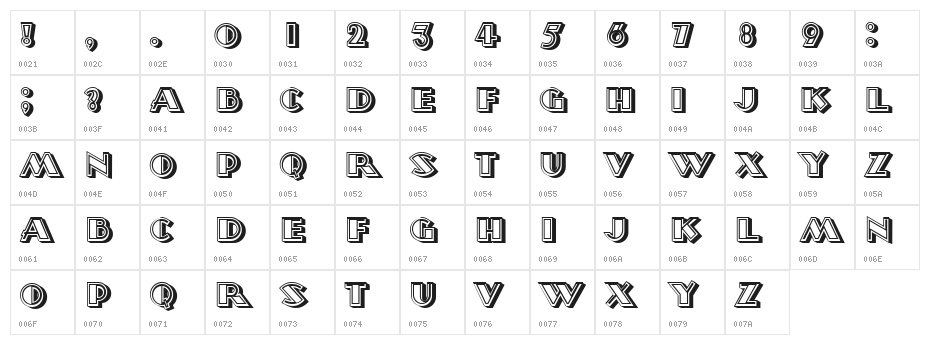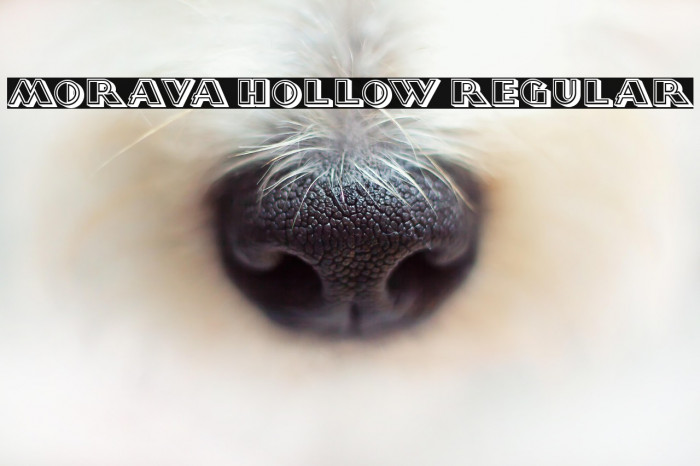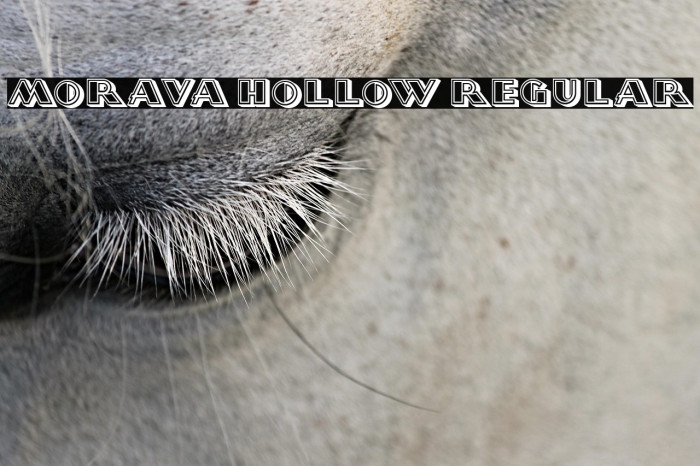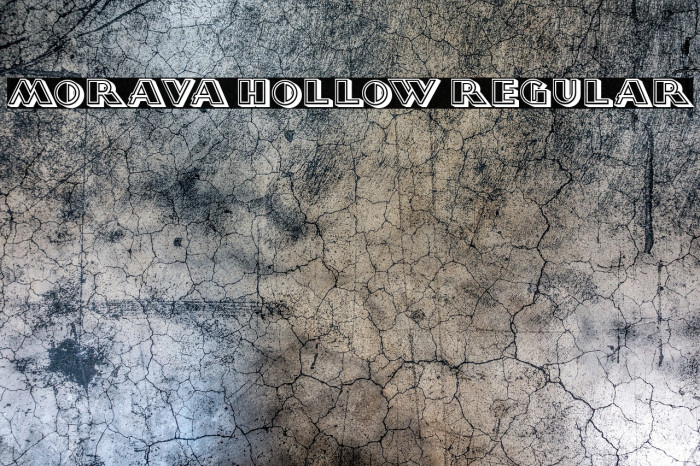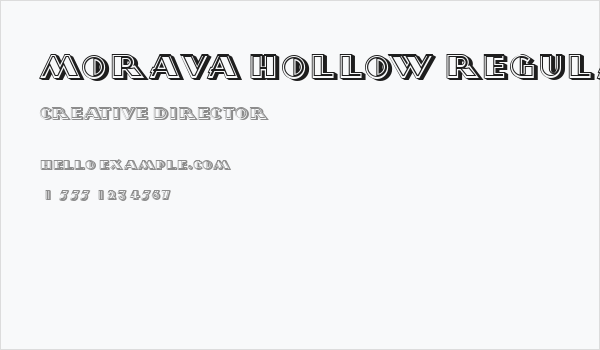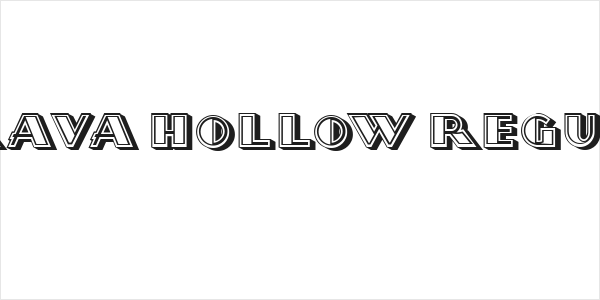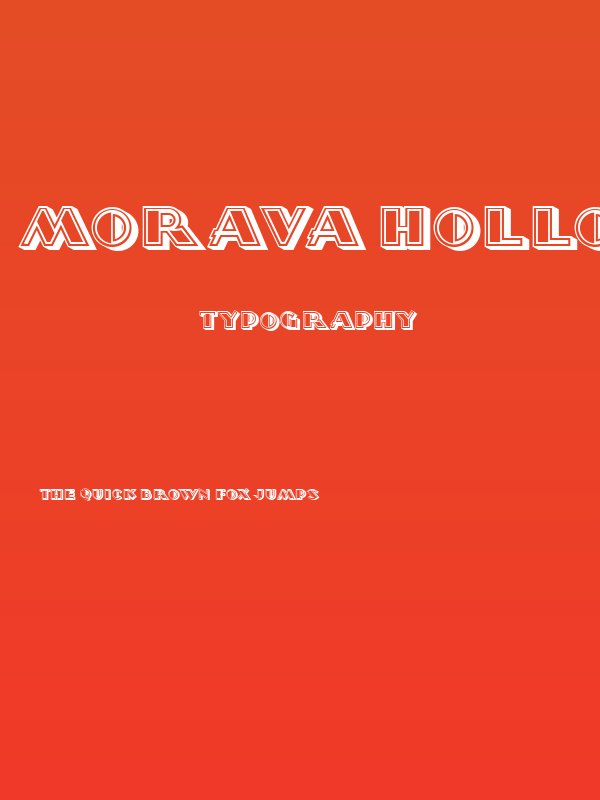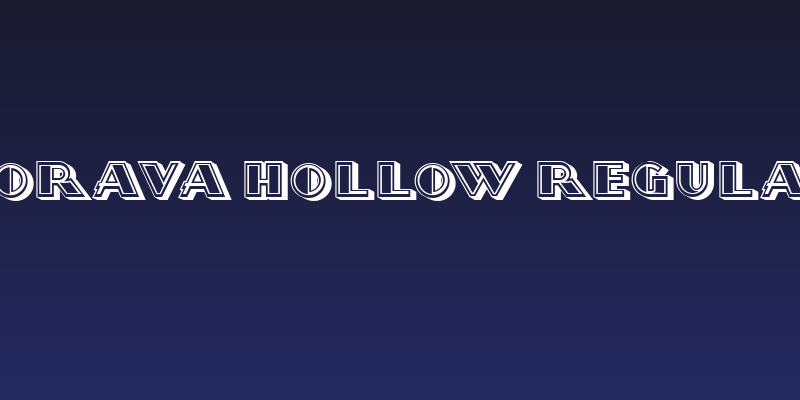
Morava Hollow Regular Font
Morava Hollow Regular Description
This font features a bold, decorative style with a hollow, three-dimensional appearance. Each character is outlined with a thick black border, creating a striking contrast against the white interior. The geometric shapes and sharp angles give it a modern, edgy look. The uppercase and lowercase letters maintain a consistent style, with the numbers and special characters following suit. This font's unique design makes it ideal for eye-catching headlines or logos that require a strong visual impact.
| Proposed Projects | Ideal for poster designs, branding, logos, and any project needing a bold, standout typeface. |